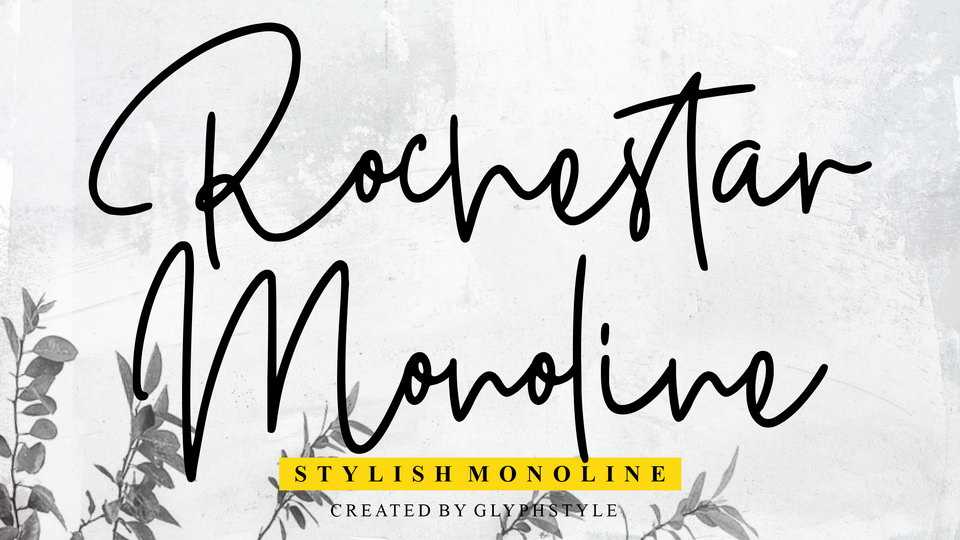
Download Rochestar font, a unique signature style handwritten typeface. Rochestar font is perfect for branding projects, logos, wedding designs, social media posts and any project that requires a sense of handwritten look.